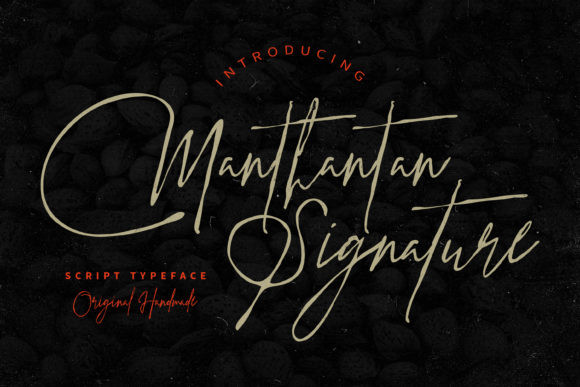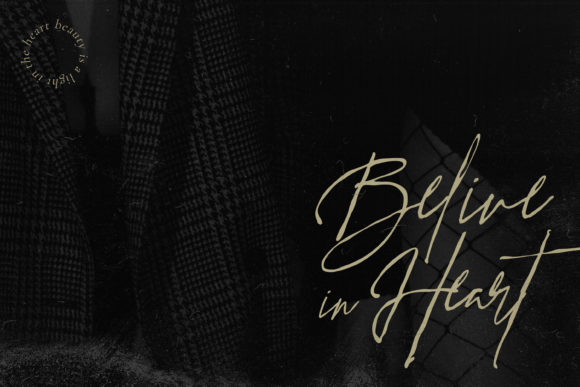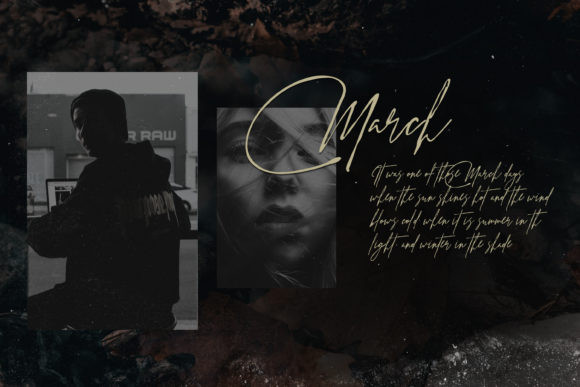
Manthantan Font
Manthantan Signature Font
Manthantan Signature feels equally charming and elegant. This stunning script font is a stylish homage to classic calligraphy. It features a varying baseline, smooth lines, gorgeous glyphs and stunning alternates.
Manthantan Signature Font